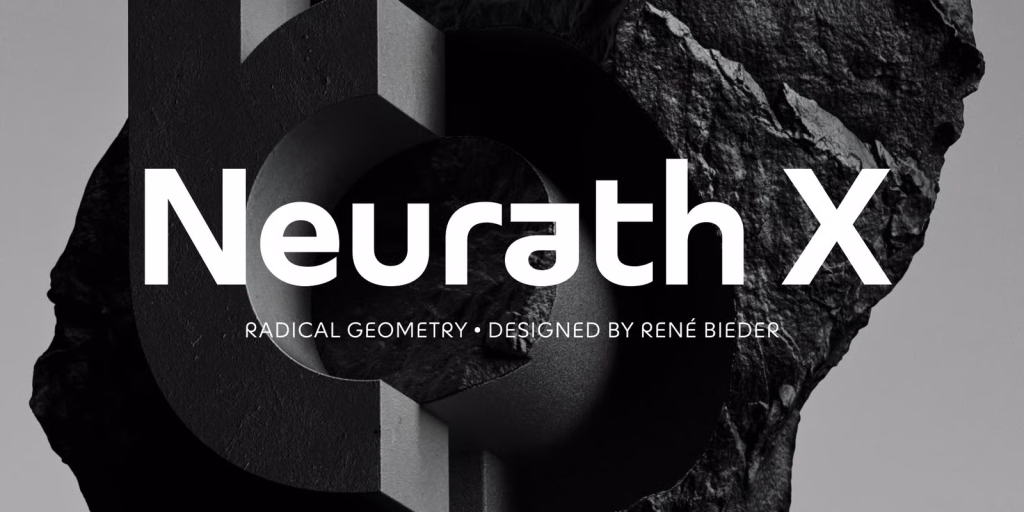
- Style
- Geometric Sans-Serif
- Mood
- Minimal, Modern
- Use case
- Branding, Editorial
Neurath X is an expressive geometric sans serif by René Bieder that explores how far geometric reduction can go while remaining clear and usable. Developed alongside the proportional Neurath collection, it reconsiders Futura through the experimental logic of Herbert Bayer’s Universal alphabet and Herb Lubalin’s ITC Ronda.
The 18-style family runs from Thin to Black, with matching italics and a broad selection of OpenType stylistic alternates. It can move from restrained geometric forms to more radical early-modernist interpretations, making it especially useful when a brand needs a distinctive voice without sacrificing day-to-day usability.
Why You Should Consider Neurath X
Neurath X pairs a systematic construction with careful optical refinement. Its clear spacing and thoughtful proportions keep the typeface practical for contemporary identities, editorial systems, interfaces, packaging, and display work.
Visual Character
The family has a reduced, experimental geometric character that still feels natural in use. Its alternate forms offer real control over the overall tone, from quiet and rational to boldly unconventional.
Best Use Cases
- Brand identities and wordmarks that need a distinctive geometric voice
- Editorial headlines, campaigns, posters, and packaging
- Contemporary interfaces and design systems with a strong typographic point of view
Font Pairing Ideas
- Pair it with a neutral humanist sans serif for approachable body copy.
- Use a text-focused serif alongside it to add warmth and editorial contrast.
Font Features
- 18 styles from Thin to Black, including italics
- Expressive geometric sans serif construction
- Extensive OpenType stylistic alternates and language support